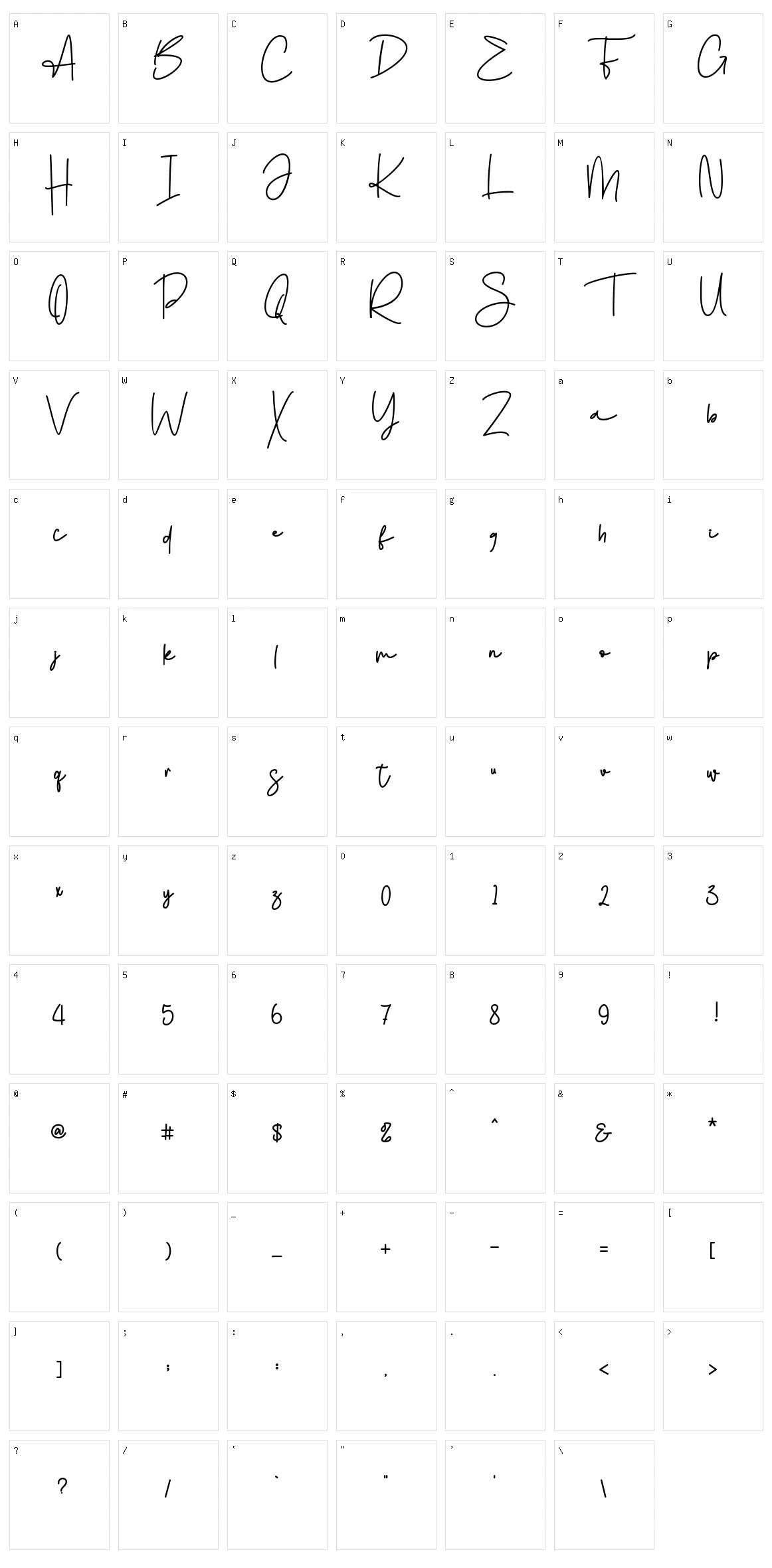
The free font Bollifia is carefully designed by Letterara, showcasing a thoughtful balance of creativity and usability and falls under the Script font style. When you download the ZIP file, it contains only 543.54 KB of font files, making it lightweight and quick to download. Please review the license details below to understand permitted usage and distribution rights. If license information is not available, we recommend using this font for personal projects only or contacting the author directly for commercial usage permissions.